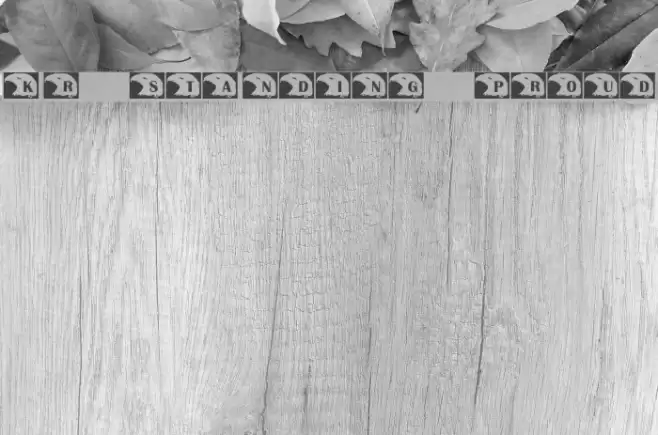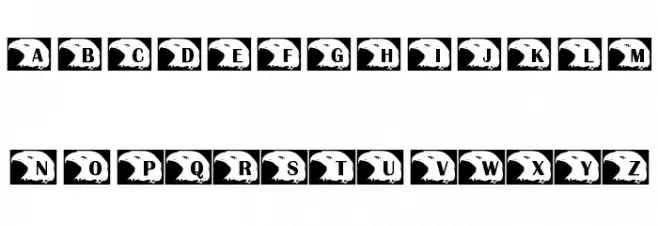
KR Standing Proud Font
KR Standing Proud Description
This font features a bold and striking design, with each character encapsulated within a square frame that includes a stylized eagle motif. The letters are uppercase and presented in a uniform, blocky style that emphasizes strength and presence. The eagle design adds a unique decorative element, making the font highly distinctive and memorable. The characters are evenly spaced within their frames, ensuring clarity and readability despite the intricate design. This font is ideal for projects that require a bold statement or a patriotic theme, as the eagle symbol is often associated with freedom and power.
A bold, decorative font with an eagle motif in each character's frame from Uncategorized fonts.
- Proposed Projects: Ideal for patriotic posters, logo designs, and themed event invitations.
- Use Case: Logos, Headlines